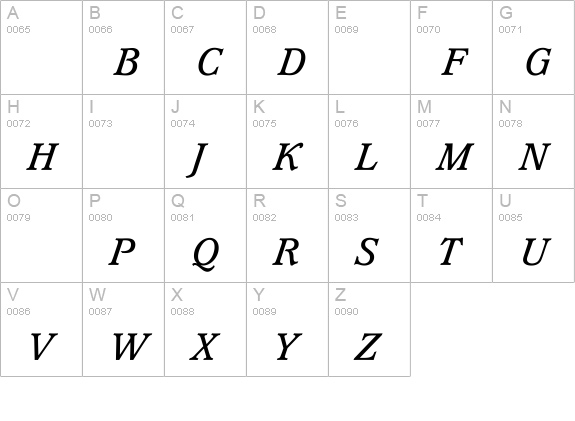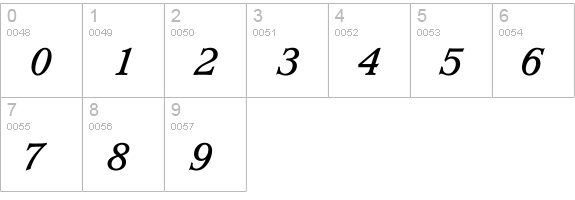
WaverlyMediumItalic Font Details
Introducing WaverlyMediumItalic, a captivating typeface that effortlessly combines elegance with a touch of playfulness. This font is the perfect choice for those seeking a balance between sophistication and creativity in their designs. With its sleek and slanted letterforms, WaverlyMediumItalic adds a unique flair to any project. Its medium weight strikes a harmonious balance between boldness and subtlety, making it versatile for a wide range of applications. Whether you're designing a logo, creating eye-catching headlines, or crafting invitations, WaverlyMediumItalic will make your text pop. What's even better is that WaverlyMediumItalic is freely available to download at FontsMarket.com. Yes, you read it right - this exceptional font can be yours without spending a dime. Now, you can bring your creative visions to life without breaking the bank. Crafted with meticulous attention to detail, WaverlyMediumItalic boasts a seamless flow in its italicized form. Each letter is carefully crafted to maintain legibility while exuding a sense of movement and dynamism. The delicate curves and subtle slant of this font add a touch of elegance and sophistication, making it a standout choice for any design project. WaverlyMediumItalic's versatility extends to various design styles, from modern and minimalistic to vintage and whimsical. Its adaptability allows it to effortlessly complement a variety of aesthetics, making it a reliable choice for designers and creatives alike. In addition to its aesthetic appeal, WaverlyMediumItalic is also highly readable. Its clear and well-defined letterforms ensure that your message is conveyed with clarity and impact. Whether used in print or digital media, WaverlyMediumItalic will make your text effortlessly legible, ensuring that your audience can easily engage with your content. So why wait? Elevate your designs with the irresistible charm and versatility of WaverlyMediumItalic. Download it for free at FontsMarket.com and unlock a world of possibilities for your next project.